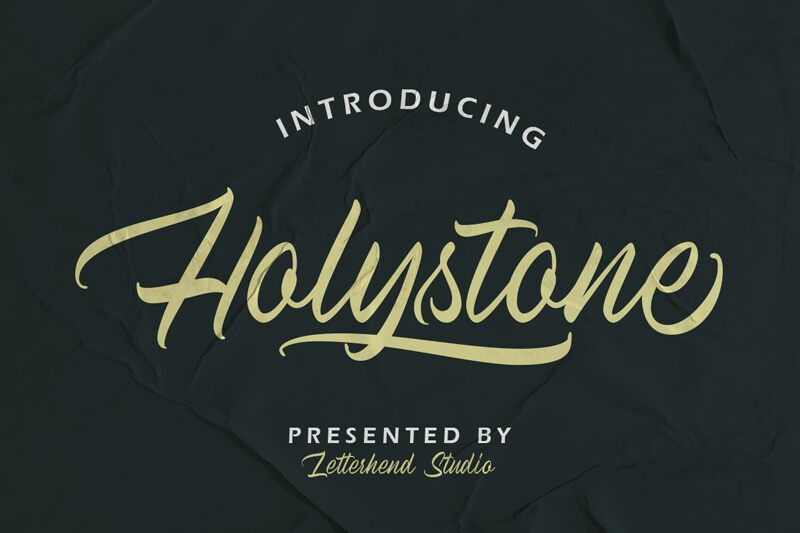
Holystone, crafted by the talented designer Egi AhmadMufid, is a captivating script font with a touch of elegance. Its semi-light weight adds a delicate charm to any project. Perfect for wedding invitations, luxurious branding, or dreamy social media graphics, Holystone will effortlessly elevate your designs. With its graceful strokes and flowing curves, this font brings a sophisticated and romantic feel to any creative endeavor. Let Holystone be the muse behind your next design masterpiece.